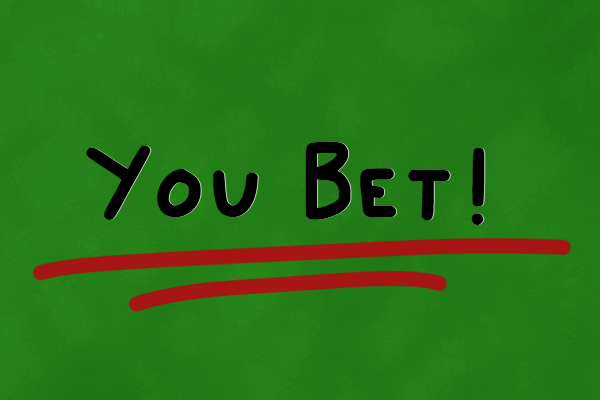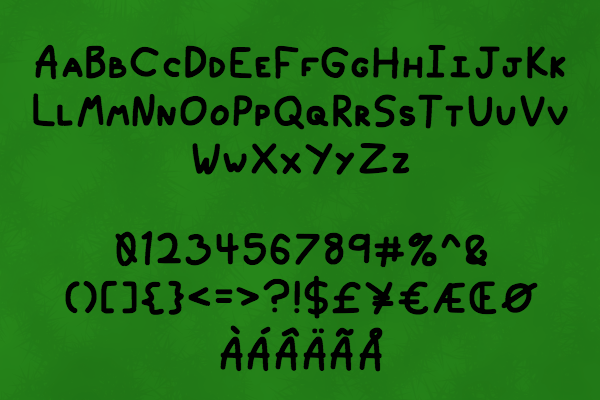
You Bet Font
About You Bet Font
You Bet is a cutesy script font, handwritten to give an authentic and organic feel to your typebased projects. This is a legible and childlike font, sure to be a great addition to any one of your creative projects.